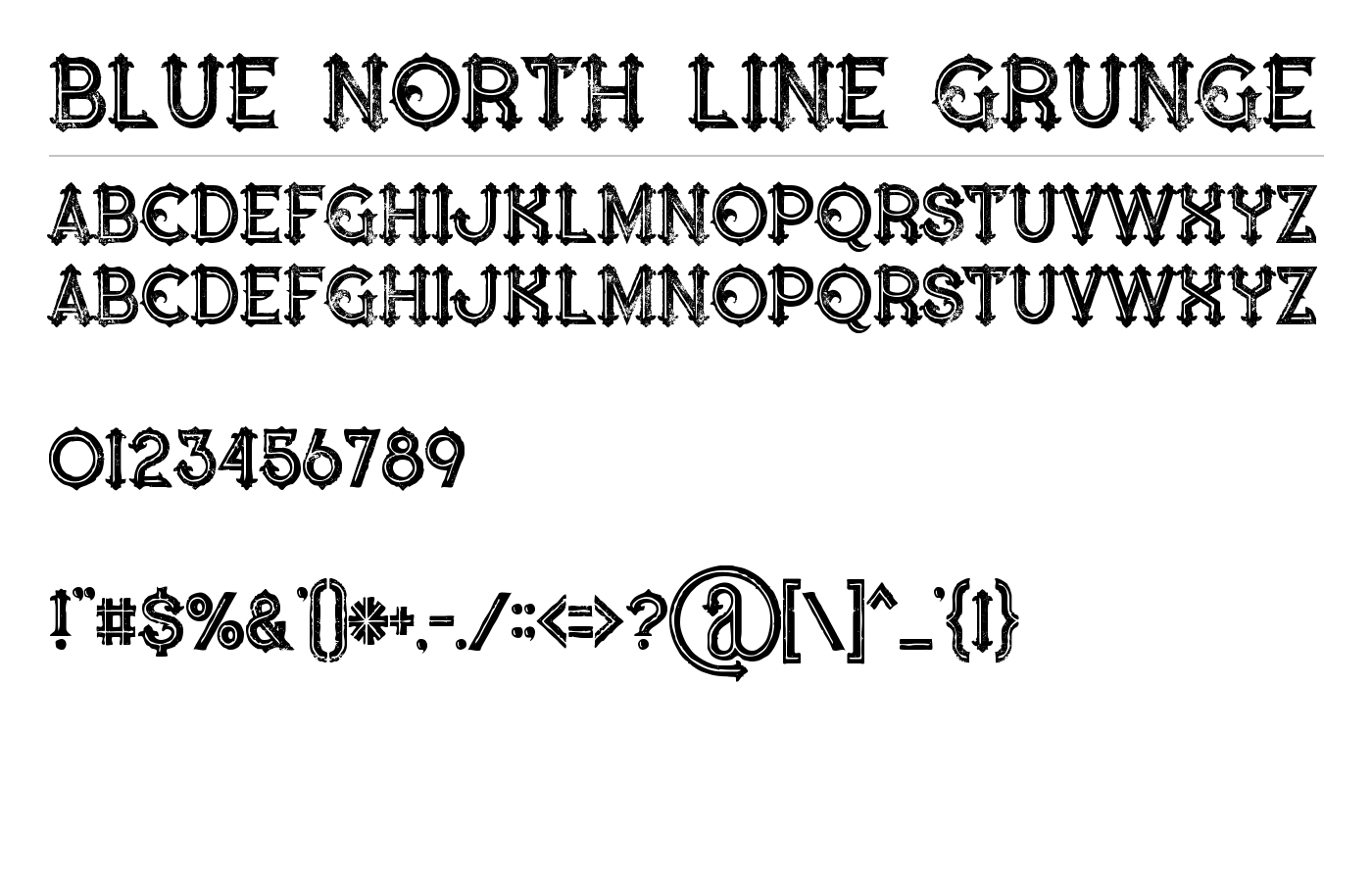
Blue North Inline Grunge is a bold, decorative serif font with a distinctive distressed, textured look that adds a vintage, edgy feel to any design. Its strong, slightly condensed letterforms and intricate inline details make it ideal for eye-catching headlines, posters, and branding that want to convey a rugged yet artistic style. This font works best where a bold statement with character and personality is needed, especially in creative or alternative-themed projects.
Blue North Inline Grunge Font
About Blue North Inline Grunge Font
| Font family | Blue North Inline Grunge Font |
| Designer | cruzine |